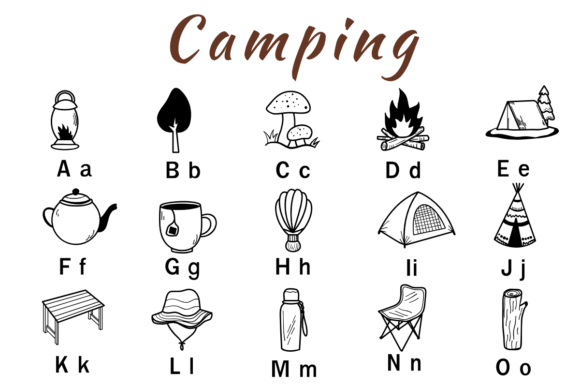
Camping Font
Introducing Camping Dingbat Font, packed with all the fun elements you’d need for your outdoor adventures! From tents to campfires, this font is perfect for adding a playful touch to your camping-themed designs. Whether you’re creating posters, invitations, or scrapbook pages, Camping Dingbat Font has got you covered with its collection of camping icons. Let your creativity roam free in the wilderness with this charming font!